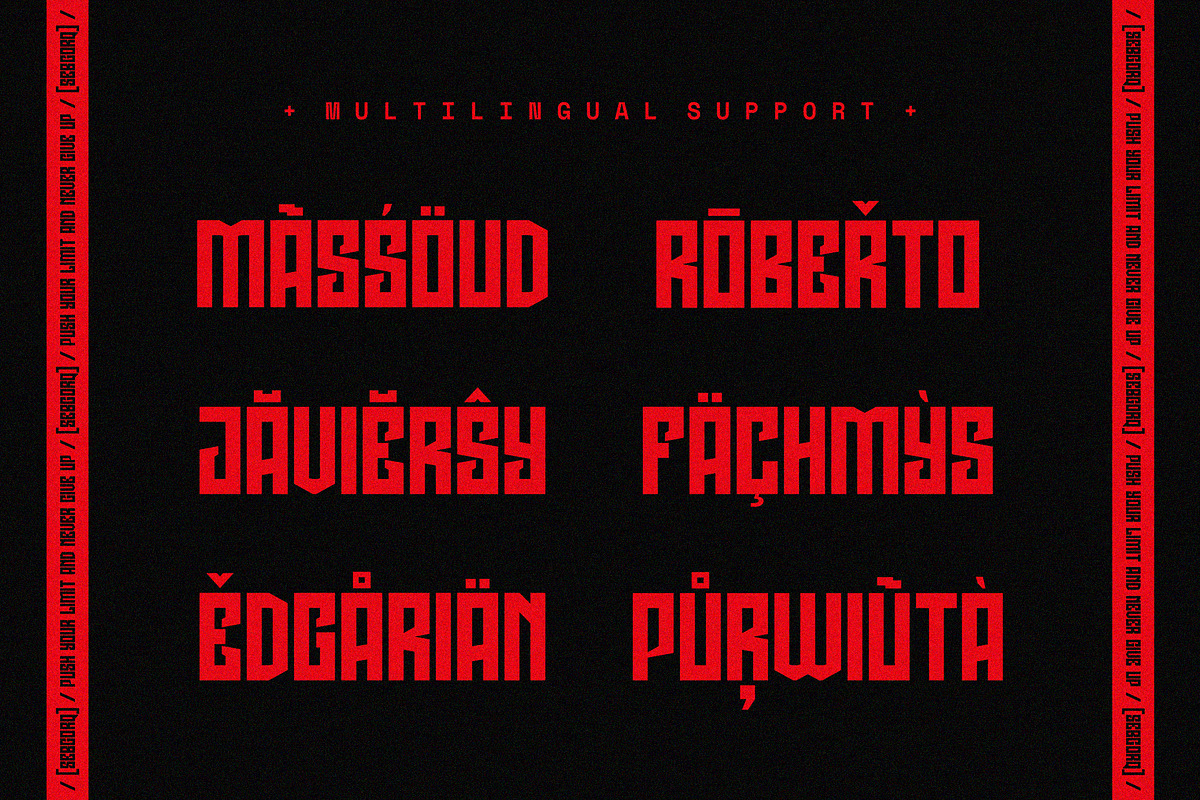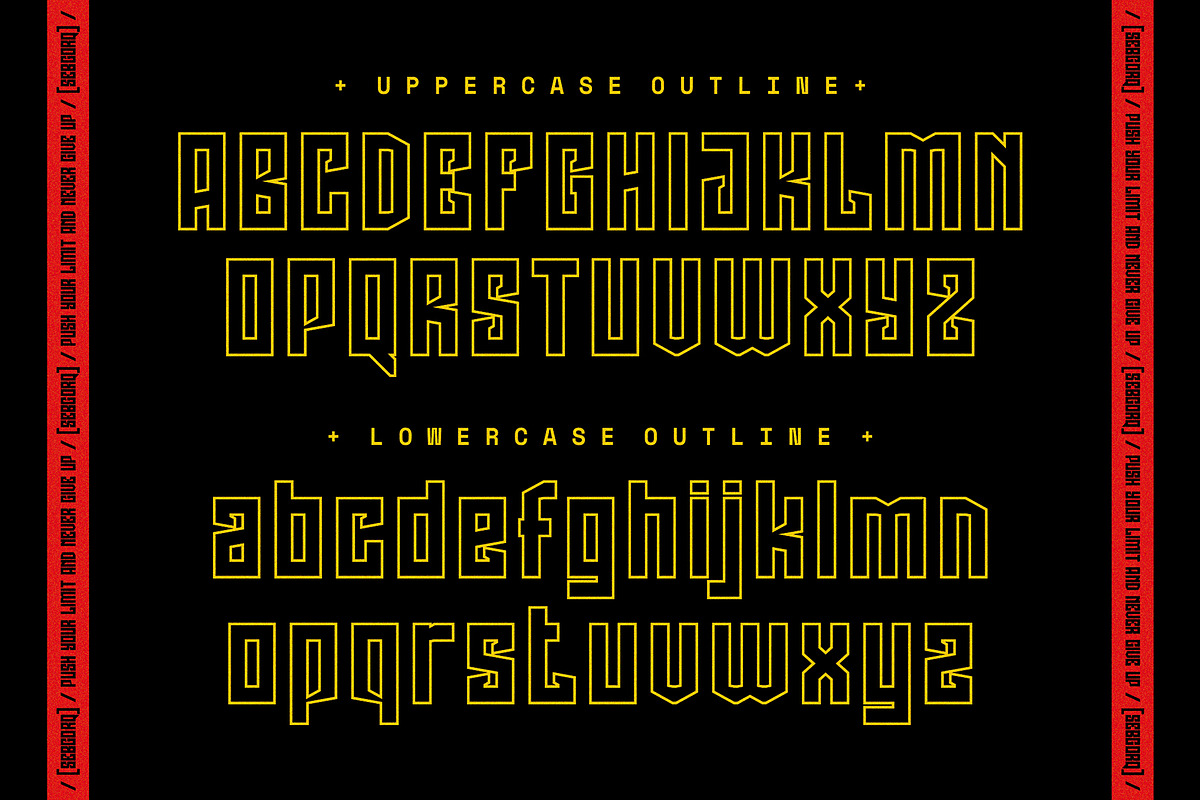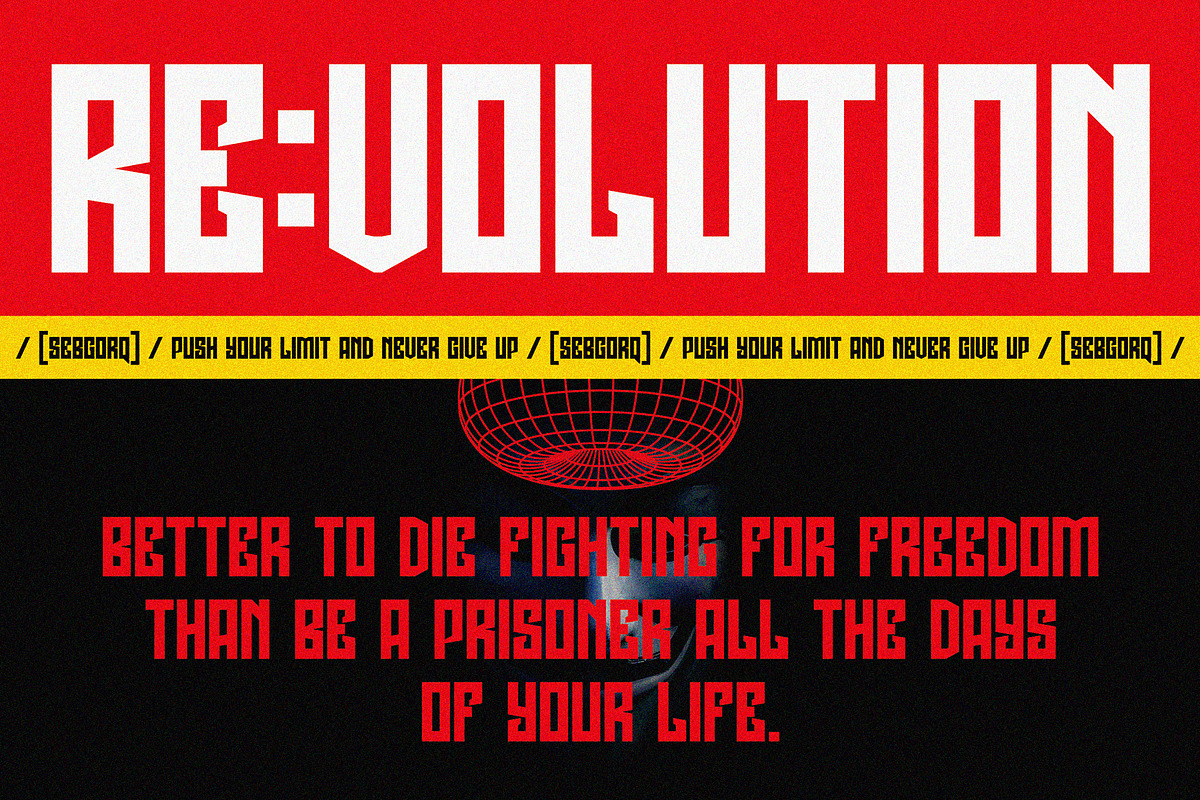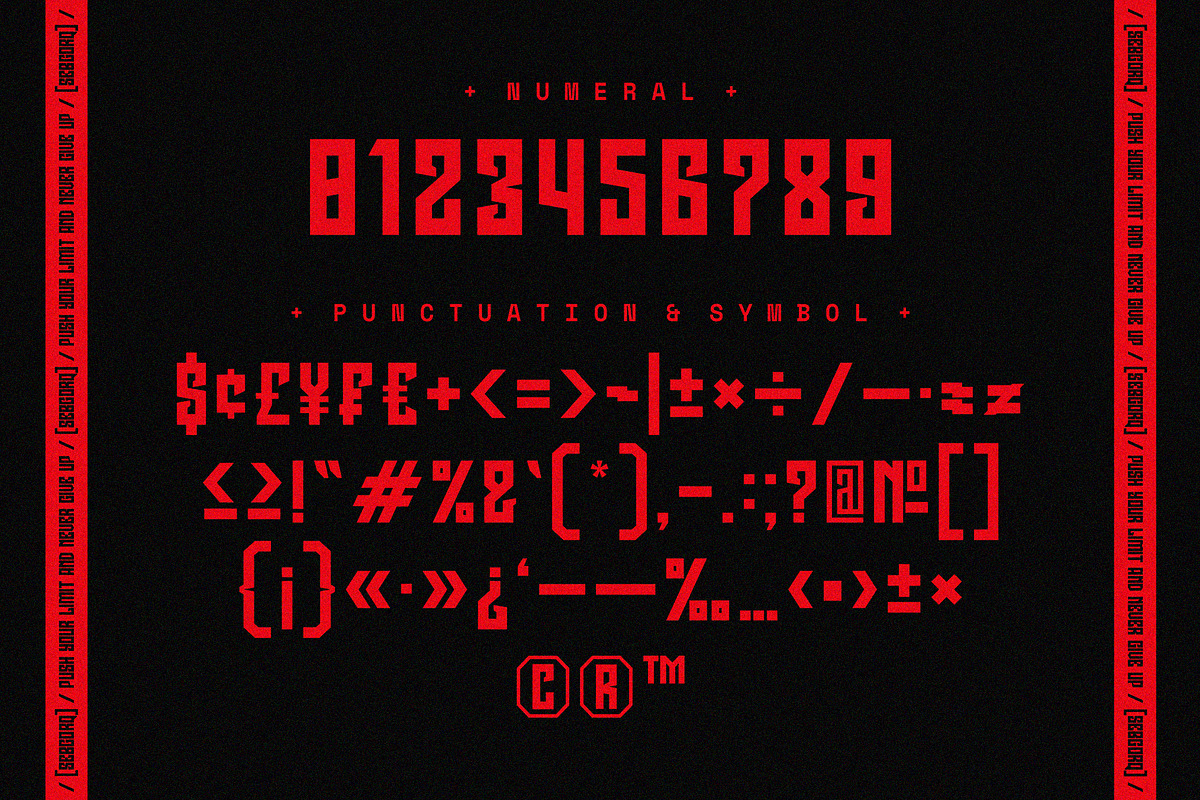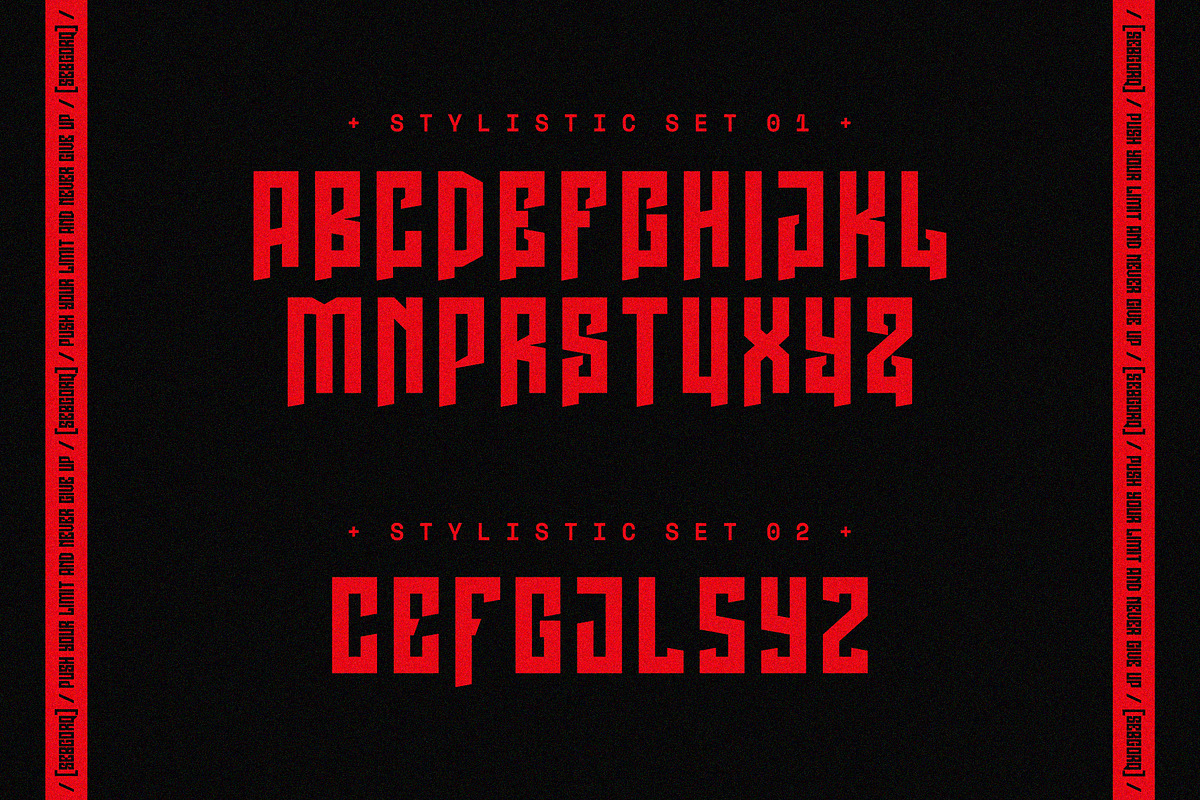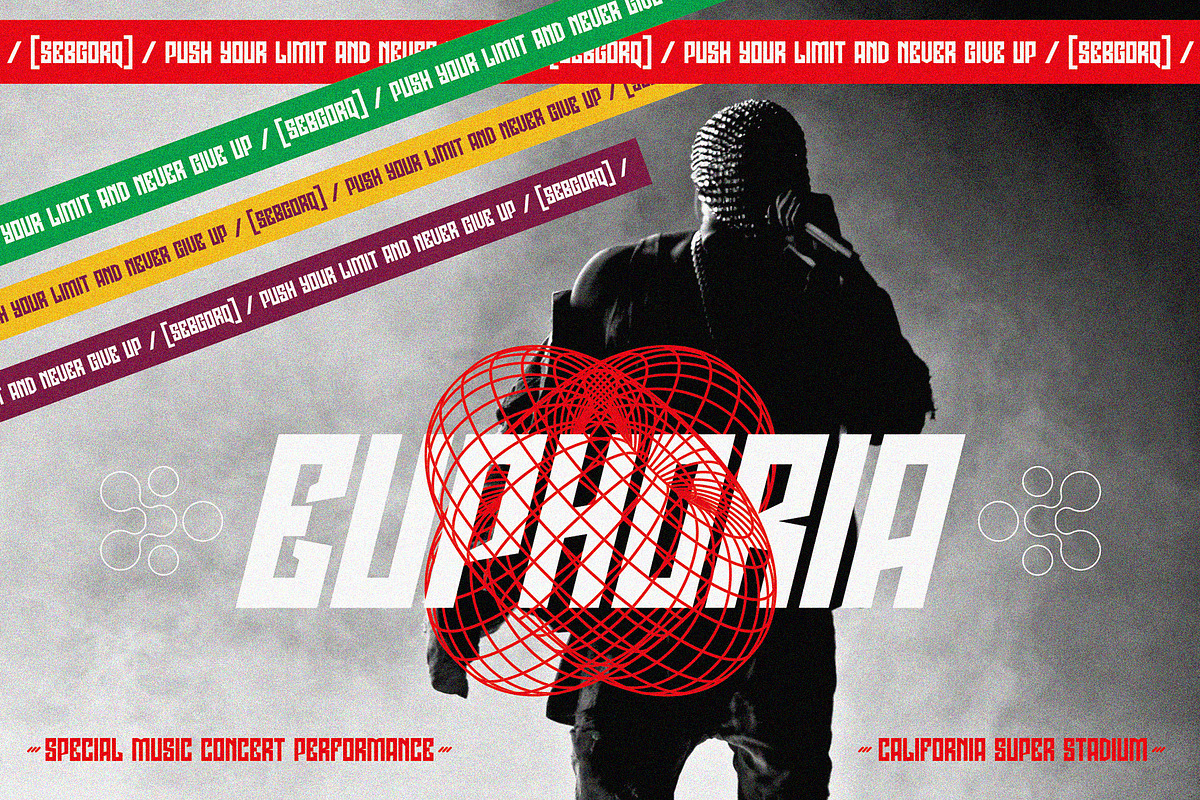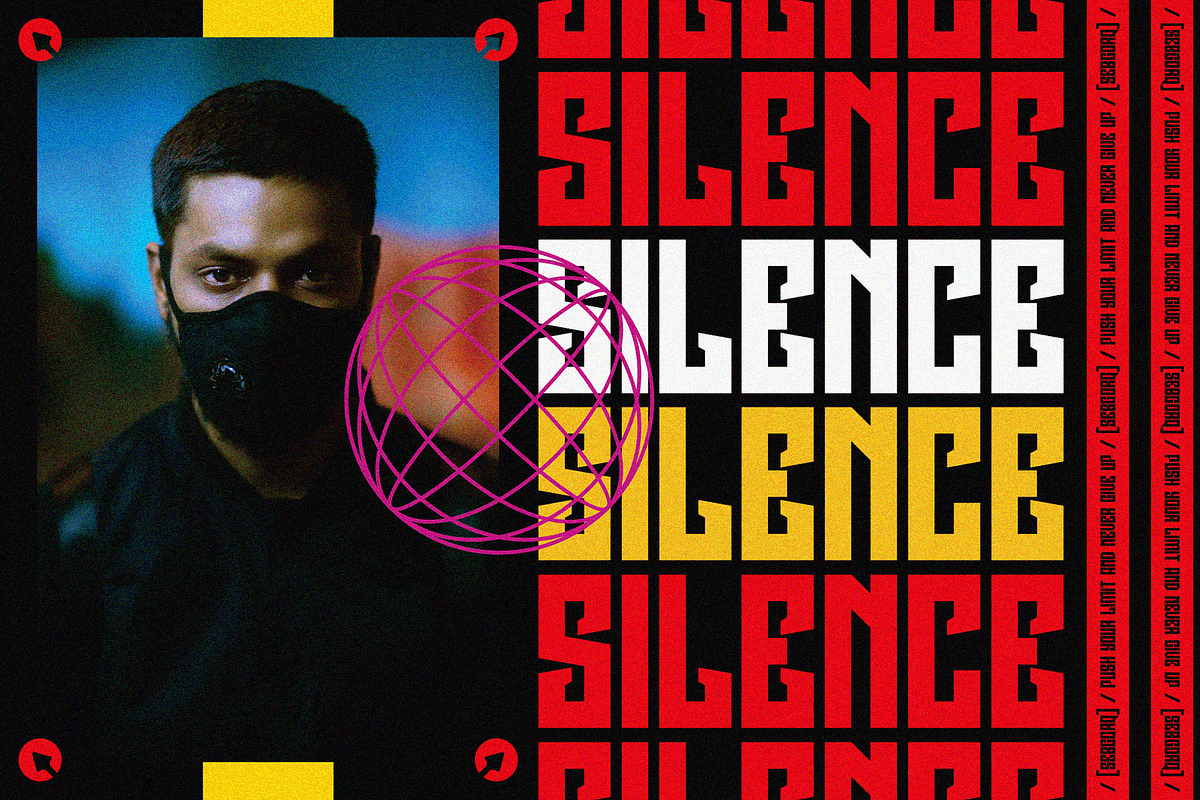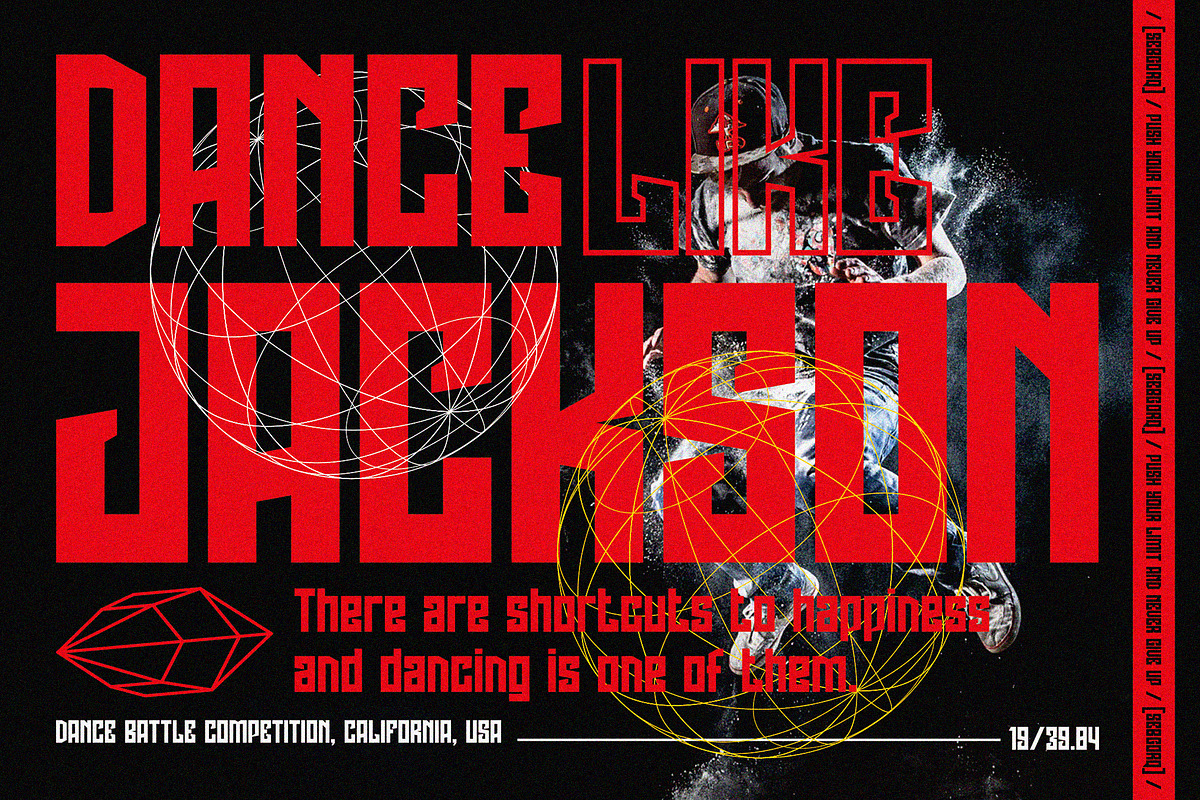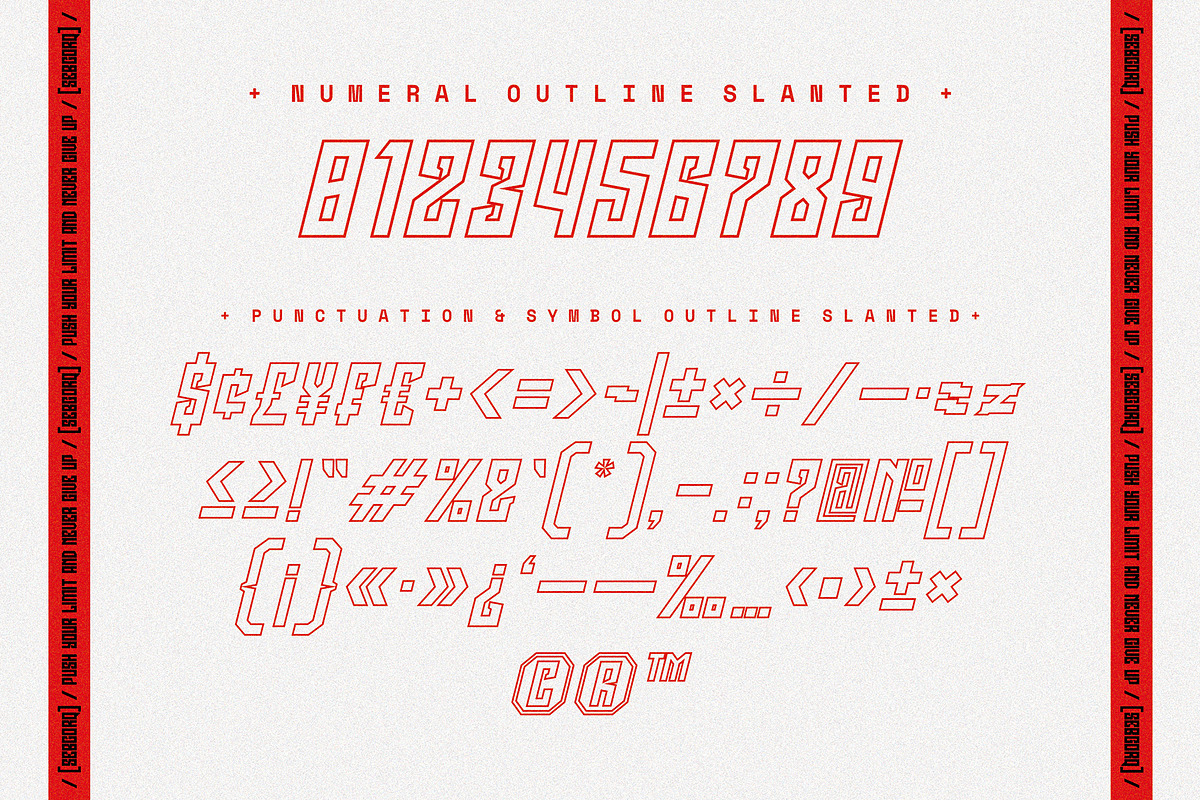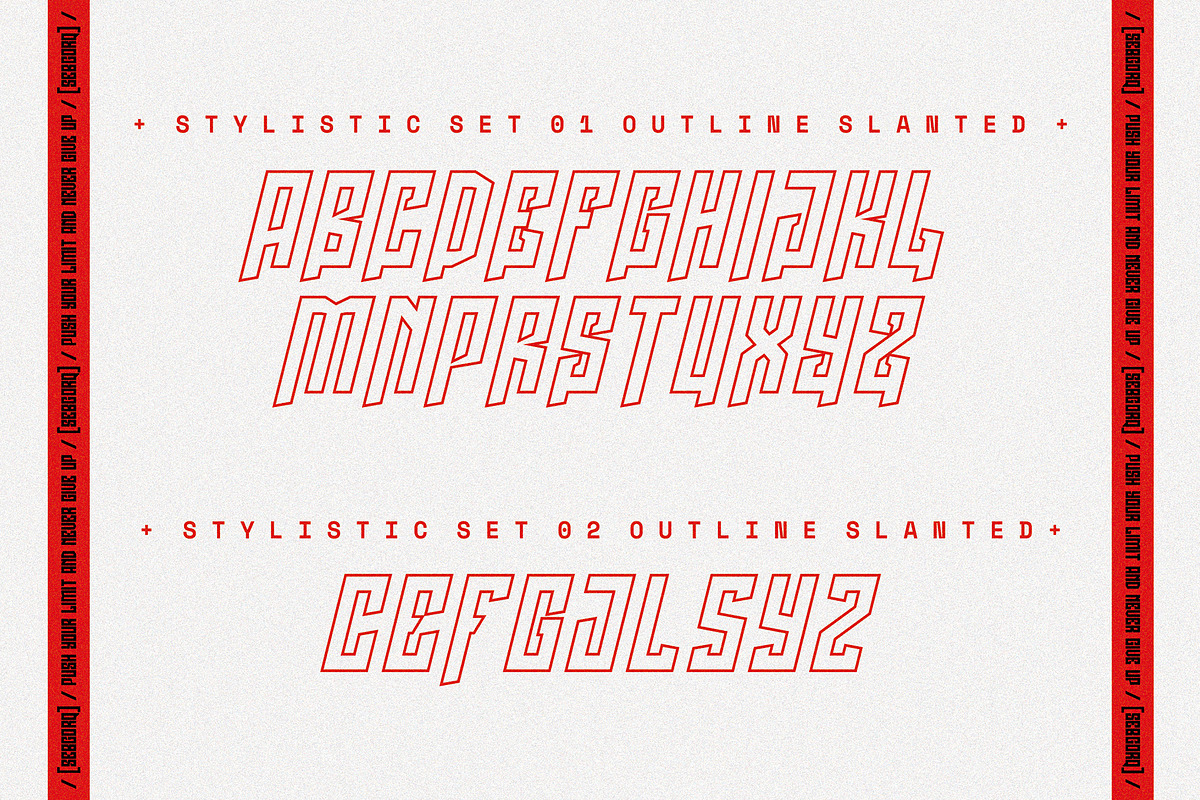
NCL Sebgorq - Urban Font
NCL SEBGORQ is a modern urban display font. Masterfully designed to become a true favorite, this font has the potential to bring each of your creative ideas to the highest level! It was purposely crafted to be used in large point sizes, although it doesn’t lose its magic in small point sizes. It is perfect for wedding, headline, billboard, magazines, website, titles, poster, branding, and logos. No matter the topic, this font will be an incredible asset to your fonts’ library, as it has the potential to elevate any creation. With this beautiful font, absolutely you can make your project stand out from the rest.
4 Style: Regular, Slanted, Outline, Outline Slanted
Contains 373 Glyphs for Each Style and 1508 Glyphs for Total
Numeral, Punctuation & Symbols
Stylistic Set 1-2
Support for 82 Languages: Afrikaans, Albanian, Asu, Basque, Bemba, Bena, Breton, Catalan, Chiga, Cornish, Czech, Danish, Dutch, Embu, English, Esperanto, Estonian, Filipino, Finnish, French, Friulian, Galician, Gusii, Hungarian, Indonesian, Irish, Italian, Kabuverdianu, Kalenjin, Kamba, Kikuyu, Kinyarwanda, Latvian, Lithuanian, Lower Sorbian, Luo, Luxembourgish, Luyia, Machame, Makhuwa-Meetto, Makonde, Malagasy, Manx, Meru, Morisyen, North Ndebele, Norwegian Bokmål, Norwegian Nynorsk, Nyankole, Oromo, Polish, Portuguese, Quechua, Romansh, Rombo, Rundi, Rwa, Samburu, Sango, Sangu, Scottish Gaelic, Sena, Shambala, Shona, Slovak, Soga, Somali, Spanish, Swahili, Swedish, Swiss German, Taita, Teso, Turkish, Upper Sorbian, Uzbek (Latin), Volapük, Vunjo, Walser, Welsh, Western Frisian, Zulu.